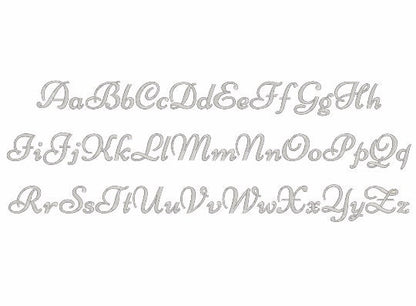
The tree comes in 4, 5, 5.5 and 6.5 inches; the 4-inch tree is split into two parts. The mini font has uppercase and lowercase letters, numbers and symbols in sizes from 0.6 to 2.5 inches.